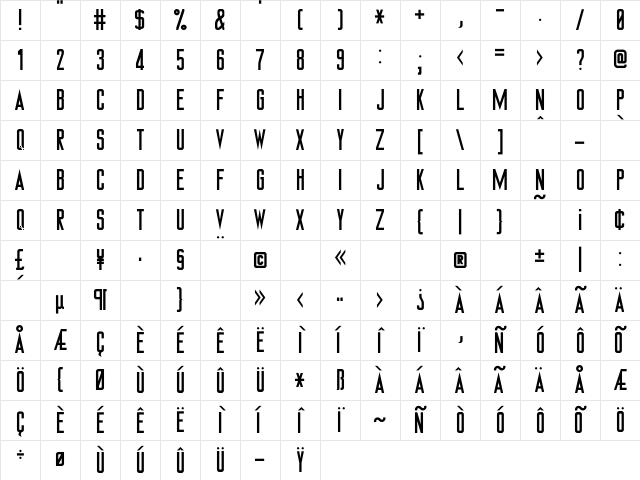
TNGMonitors Regular
Design Context for TNGMonitors
TNGMonitors is a composed and adaptable typeface that performs quietly and consistently across a wide range of design contexts.